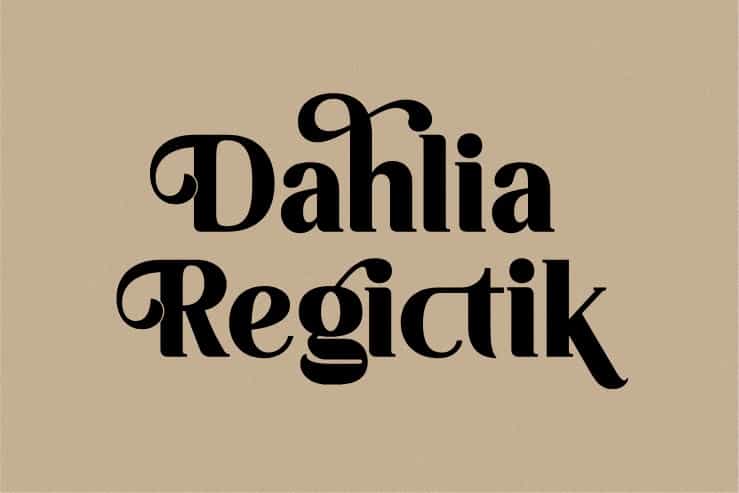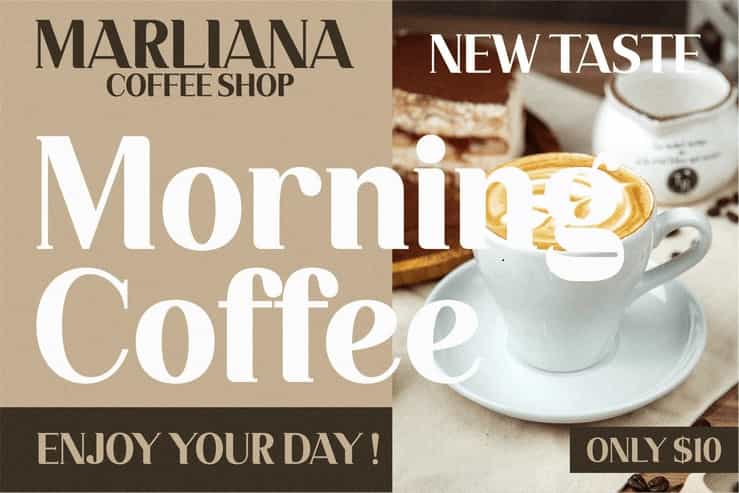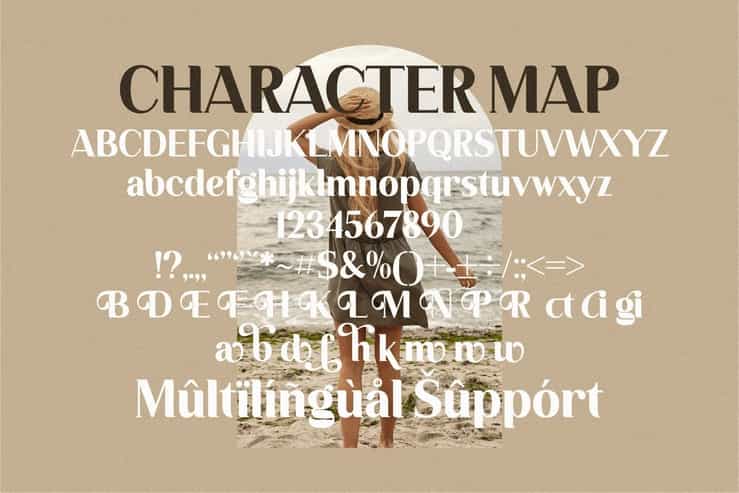
Dahlia Regictik is an elegant and classic serif typeface suitable for use in logos, branding and homeware designs; packaging of products; product mugs posters quotes shopping bags T-shirts book covers name cards greeting cards invitation cards labels watermarks photography special occasions photography special events special projects that call for something opulently serific like photography special occasions special projects that require luxurious serif flavor.